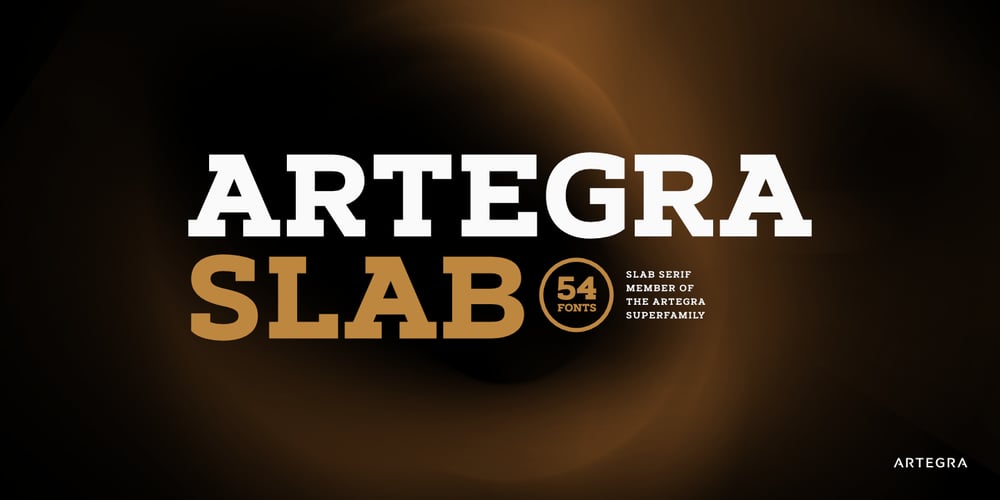
Artegra Slab Font Family was designed by Ceyhun Birinci and published by Artegra. Artegra Slab contains 55 styles and family package options. Artegra Slab is the latest addition to the Artegra superfamily. It contains 54 fonts with over 1000 glyphs per font in condensed, normal and extended widths. With Cyrillic and Greek sets it supports more than a hundred languages. It’s based on the perfectionist geometric shapes of Artegra Sans, which makes it beautiful to look at and easy to read.